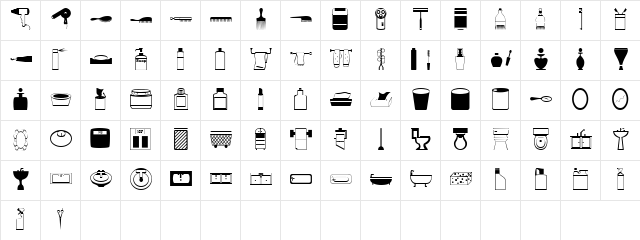
Closet Regular
Design Context for Closet Typeface
Closet is a composed and adaptable typeface that performs quietly and consistently across a wide range of design contexts.